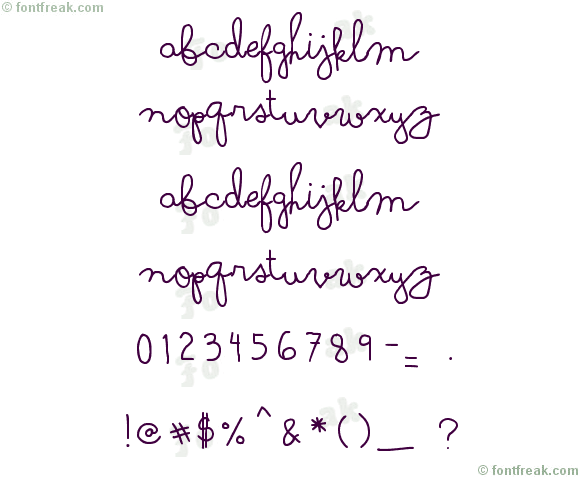
Soymilk
About Soymilk
Soymilk by Denise Bentulan is a delightful handwritten font that exudes warmth and personality. Released in 2012, this freeware typeface captures a casual, yet artistic essence, making it a captivating choice for various design projects. The font showcases a unique, organic quality with its smooth, flowing strokes that vary in weight, lending it an inviting and friendly appearance. The spacing between characters is thoughtfully designed to enhance readability while maintaining a playful, informal vibe.
The Soymilk font is particularly well-suited for a variety of creative applications. It shines in wedding invitations, where its charming style can beautifully convey romance and elegance. Additionally, it is an excellent choice for restaurant menus, adding a personal touch that can entice diners. Graphic designers will find it useful for social media graphics, where its handwritten feel can effectively engage audiences. Moreover, it works wonderfully for branding projects, allowing small business owners to establish a unique identity that resonates with their clientele. Content creators can also benefit from the Soymilk font, using it in blogs or websites to create a friendly and relatable atmosphere.
What sets Soymilk apart is its authentic handwritten quality, which adds a sense of warmth and individuality to any design. This font not only stands out due to its aesthetic appeal but also because it invites creativity, making it a perfect choice for anyone looking to infuse their work with a personal flair.